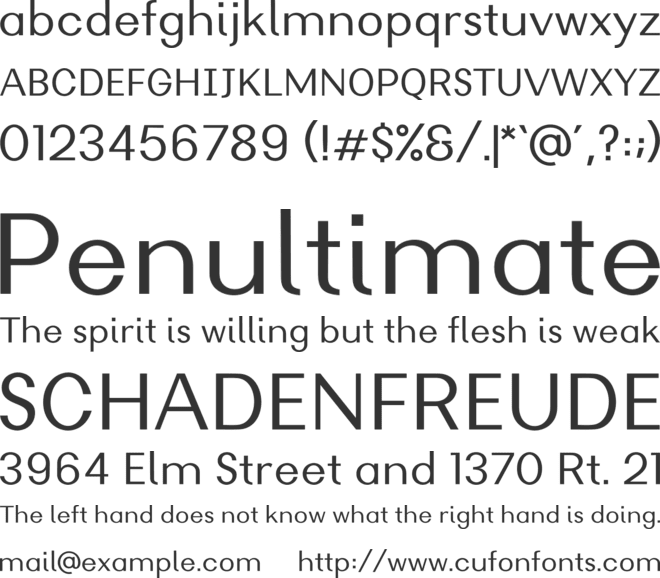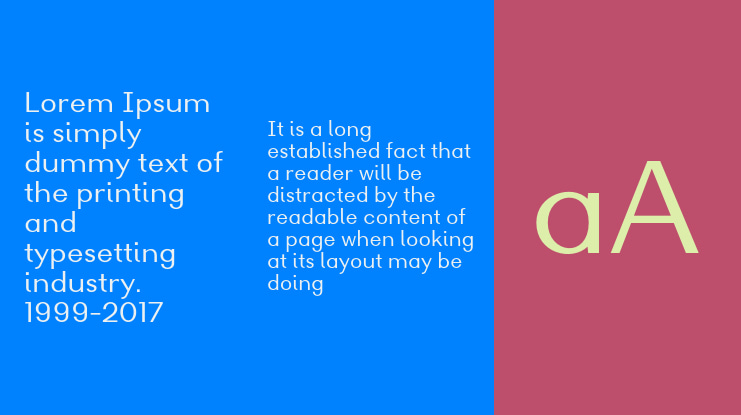
TC StarDust Font
TC StarDust is a sans serif typeface created for long text and pairs brilliantly with a vast spectrum of display fonts.
It was born with an elegant contrast and style that blends charisma with flair.
It is available in regular size with 495 glyphs that cover all Latin scripts including Central European languages and Vietnamese. It is available in .otf and .woff formats. The font is kerned and ready to use.